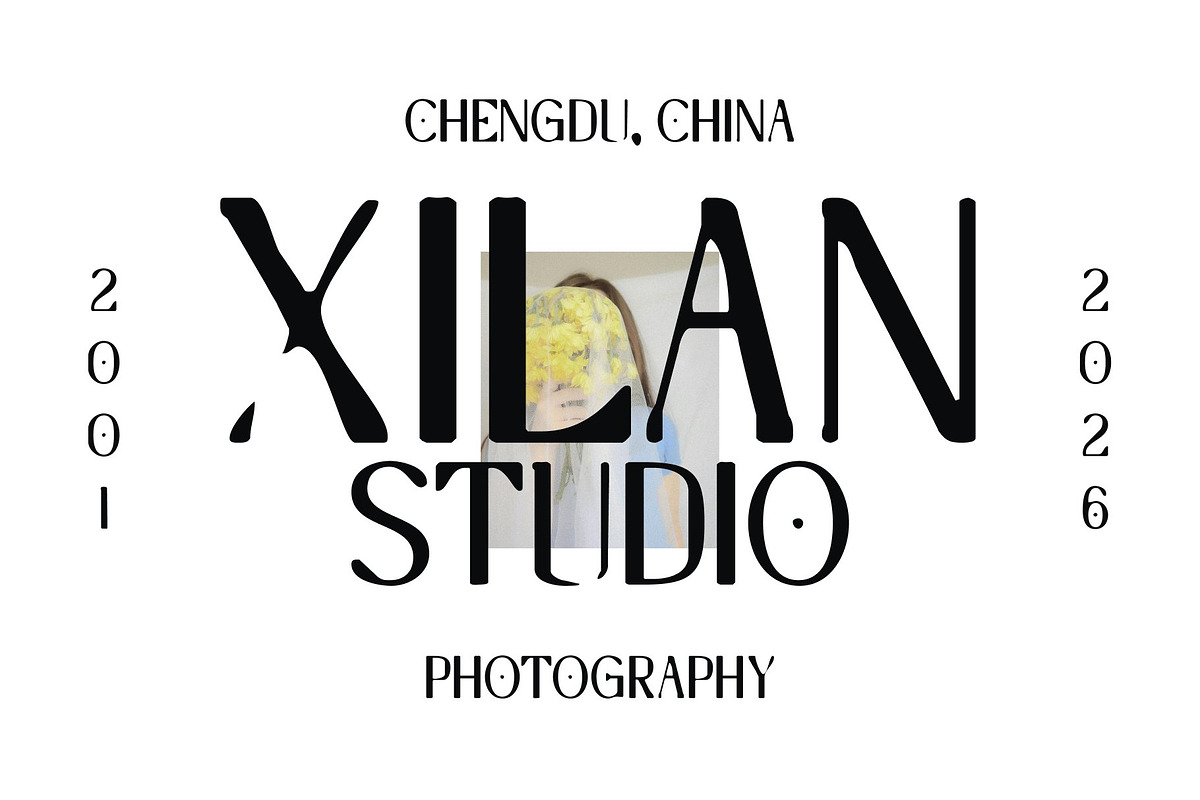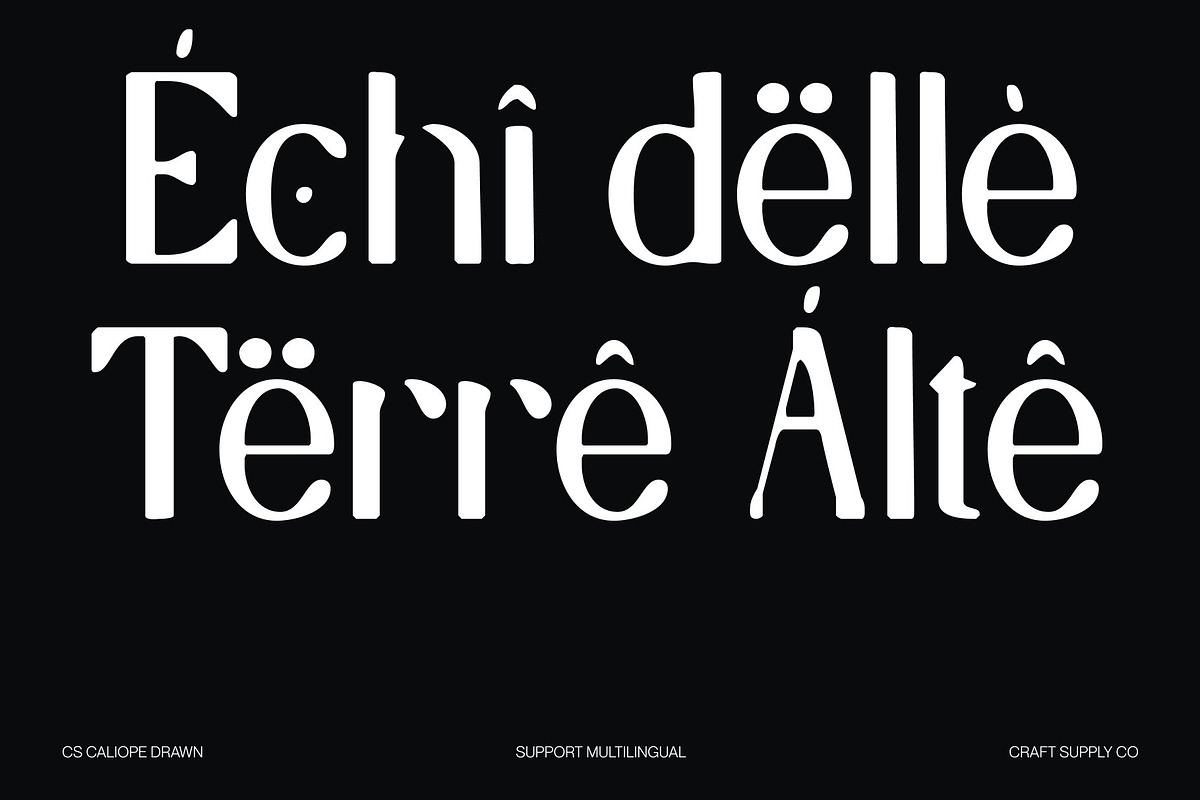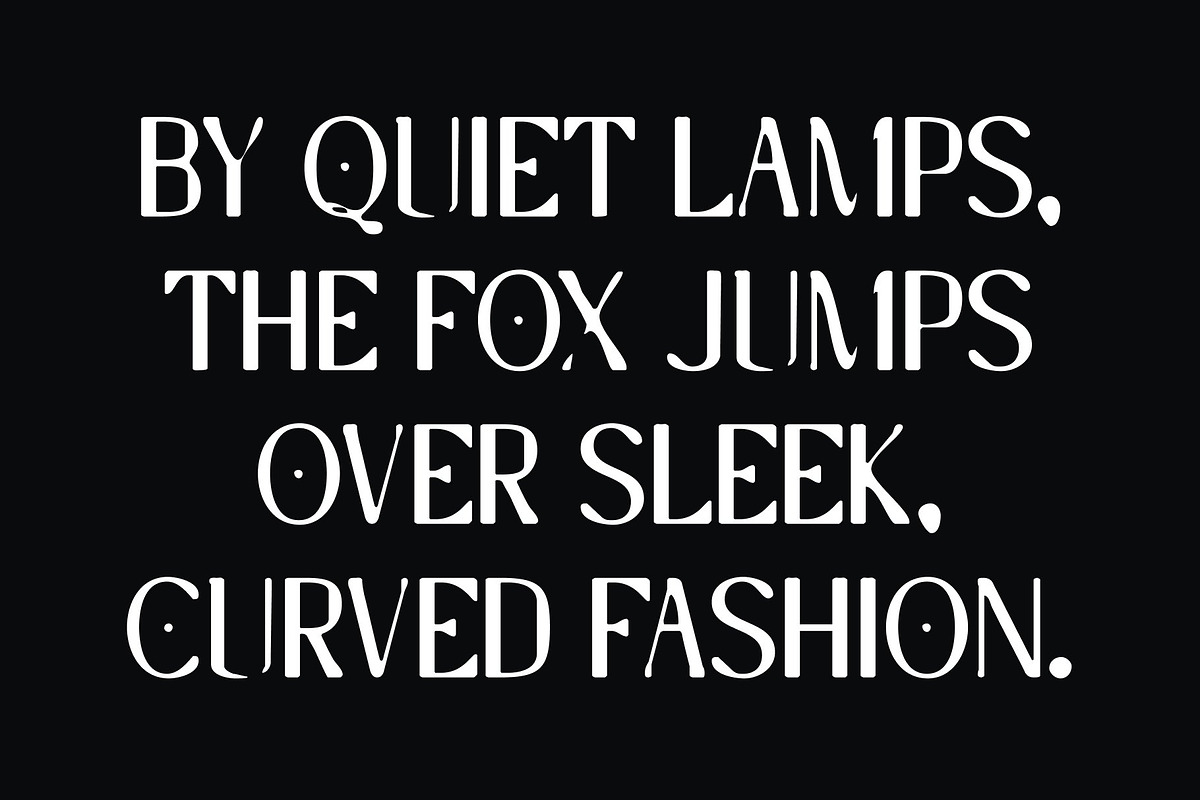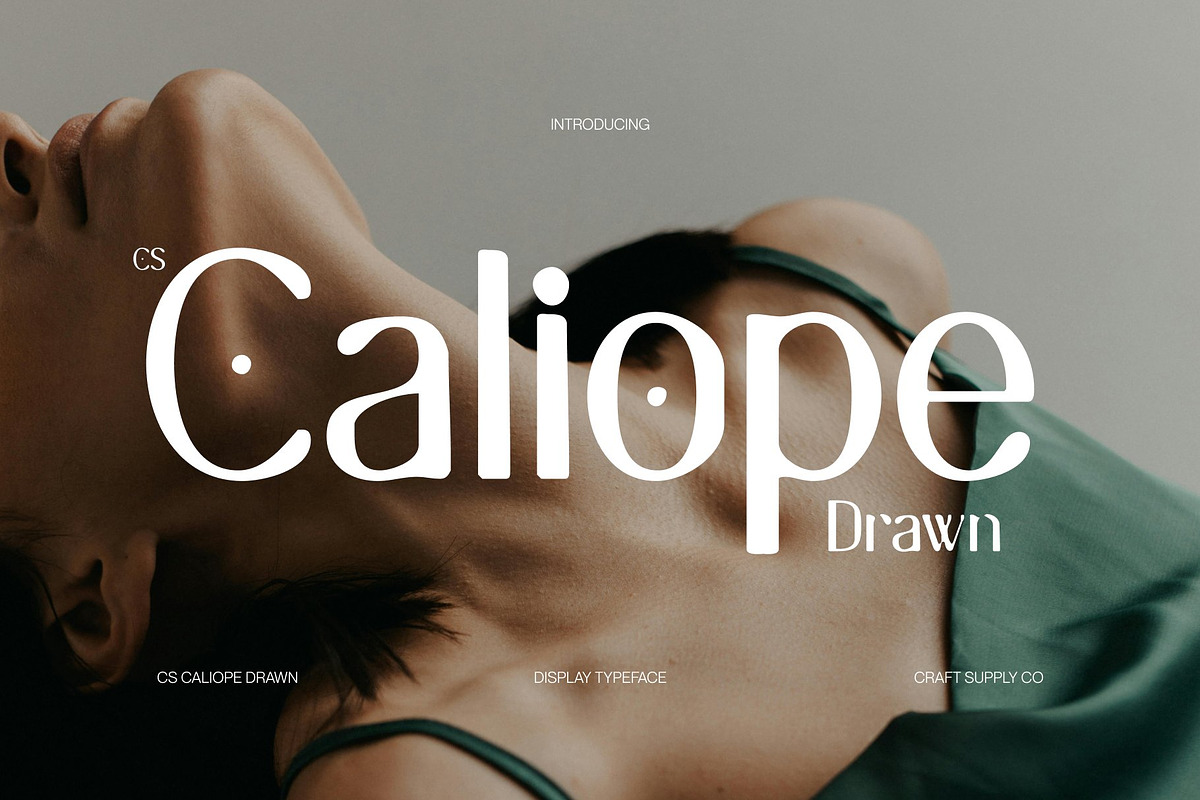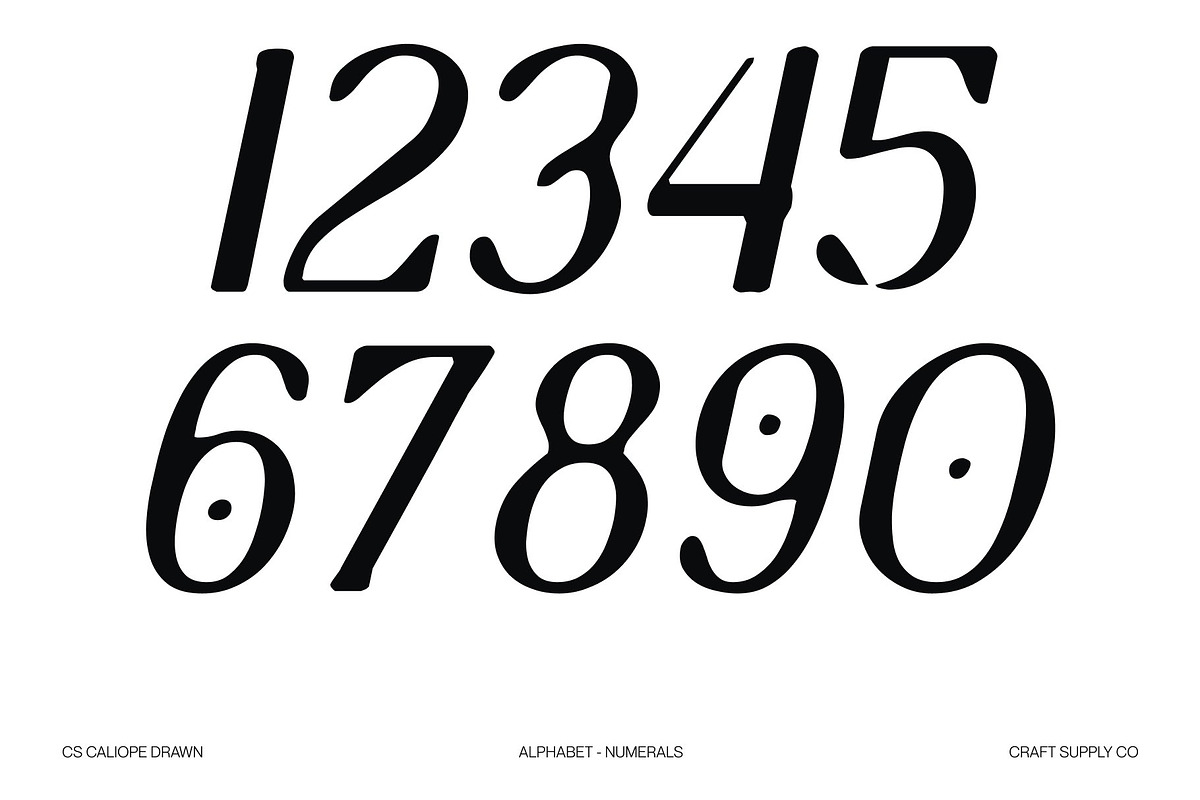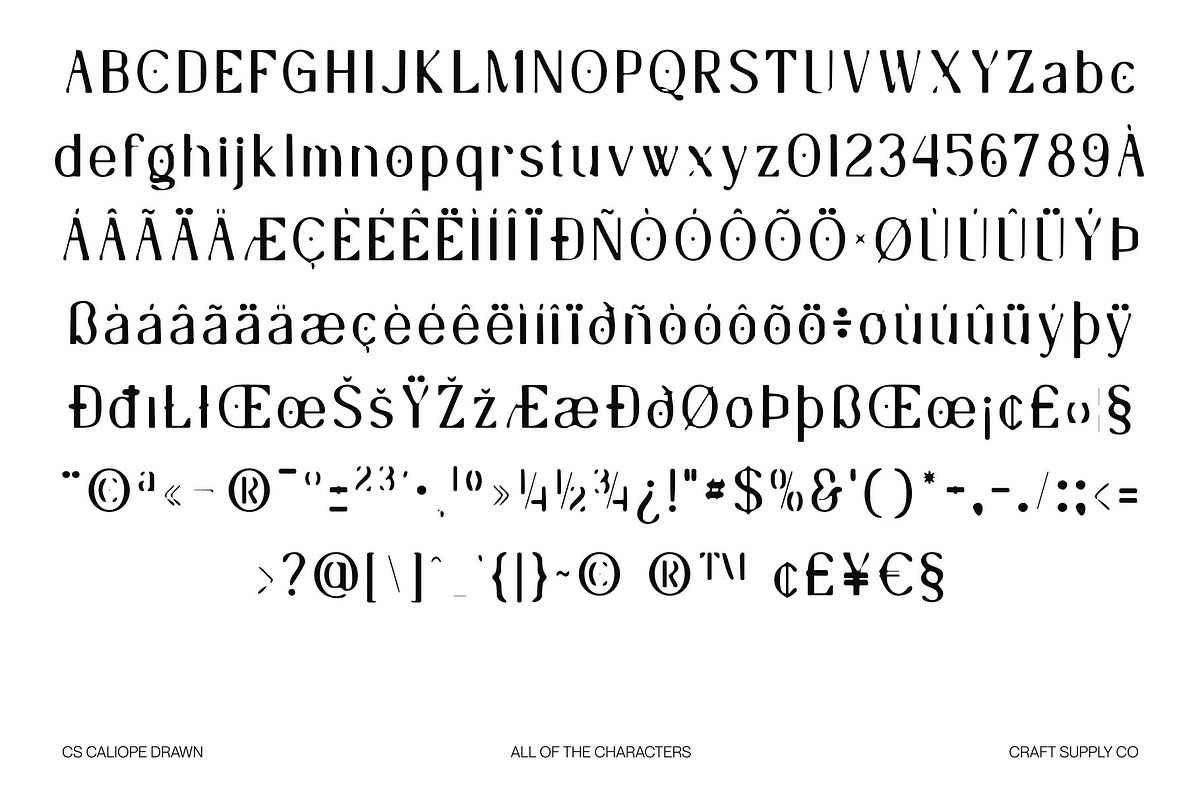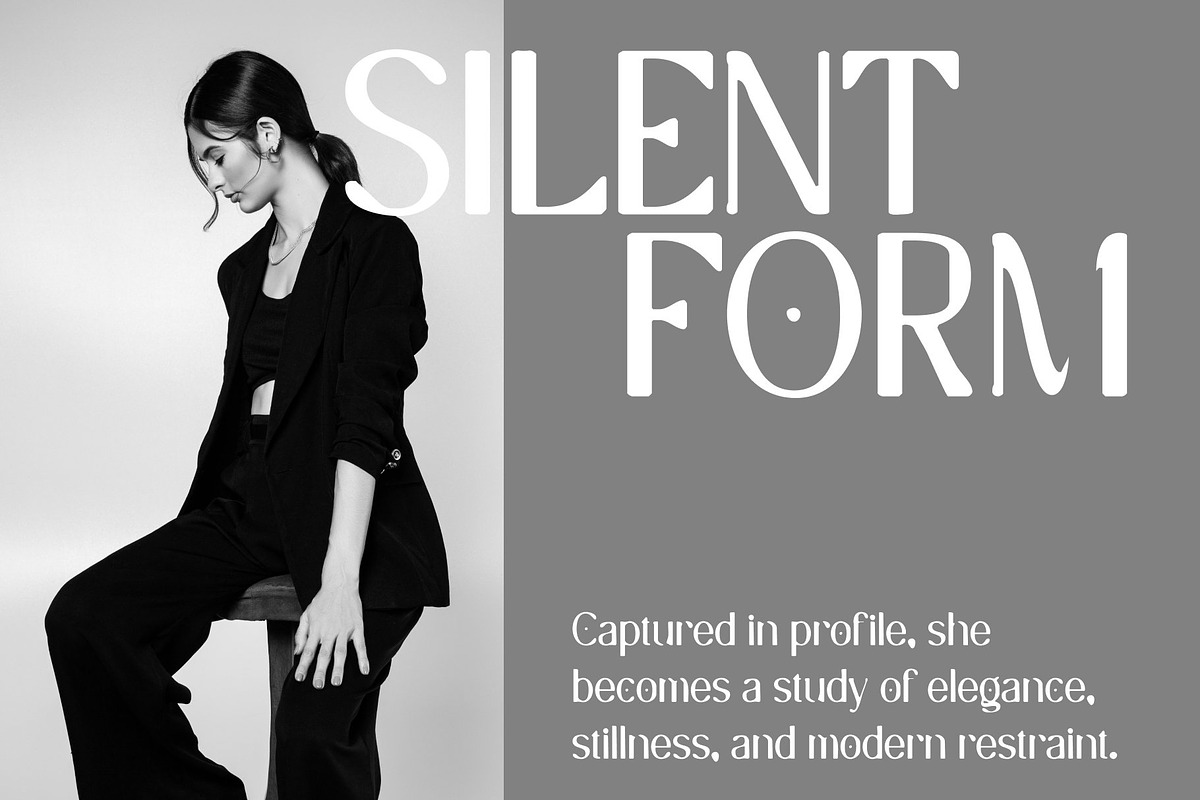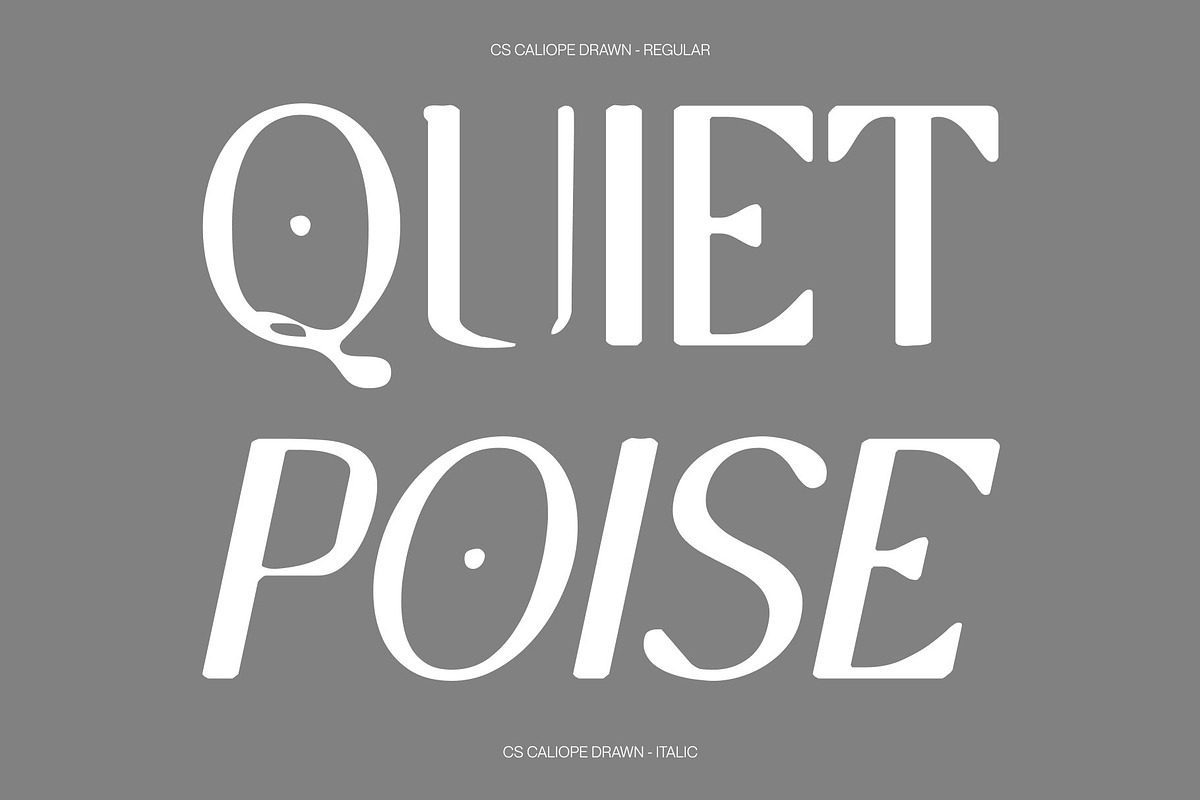
CS Caliope Drawn
CS Caliope Drawn – Modern Serif with Elongated Elegance
Modern Serif with Minimal Style and Hand-Drawn Character This is a modern serif font that embraces minimalism while delivering a refined and stylish presence, enhanced with a subtle hand-drawn texture. Its clean construction and balanced proportions communicate clarity and confidence, while the drawn details introduce warmth and artistic softness. The result is typography that feels modern, elegant, and naturally expressive.
Elongated Forms with Graceful Handcrafted Flow The elongated letterforms create a refined vertical rhythm that enhances the font’s sophisticated character. These tall, slender proportions add elegance and visual movement, while the subtle drawn finish softens the structure with gentle organic nuances. Refined serifs and smooth transitions elevate the overall aesthetic, giving the font a contemporary and fashion-forward appeal.
Minimal Structure with Artistic Depth This font balances modern clarity with delicate expressive detail. Its clean lines maintain excellent readability, while the hand-drawn texture prevents it from feeling overly rigid or mechanical. This thoughtful blend of precision and artistry makes the font feel both minimal and full of character.
Ideal for Editorial and Creative Design Perfect for editorial layouts, branding, packaging, and creative compositions, this font shines in headlines and refined typographic settings. Whether used in magazines, luxury identities, or artistic visuals, it delivers an elegant, aesthetic, and modern presence enriched with subtle handcrafted charm.
- CS Caliope Drawn Regular
- CS Caliope Drawn Italic